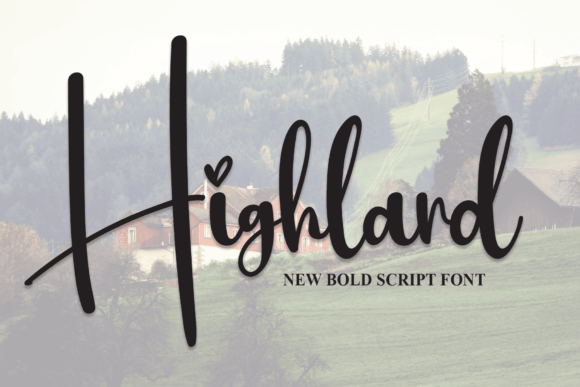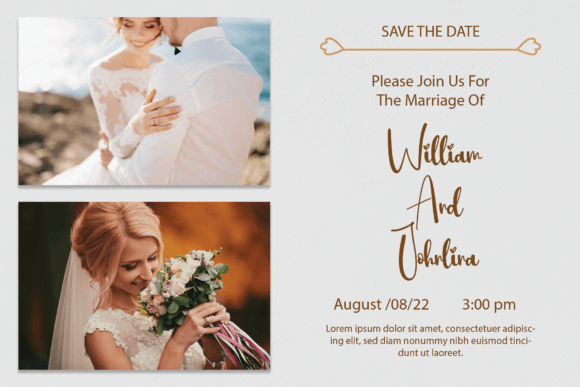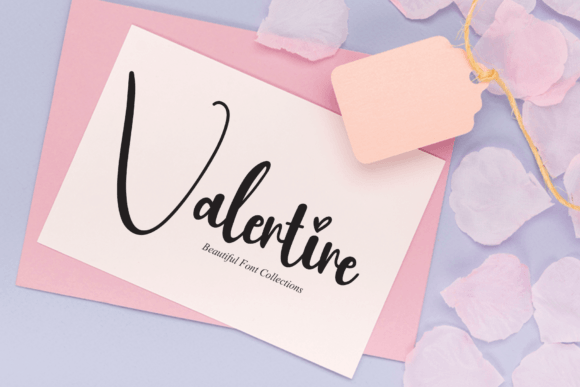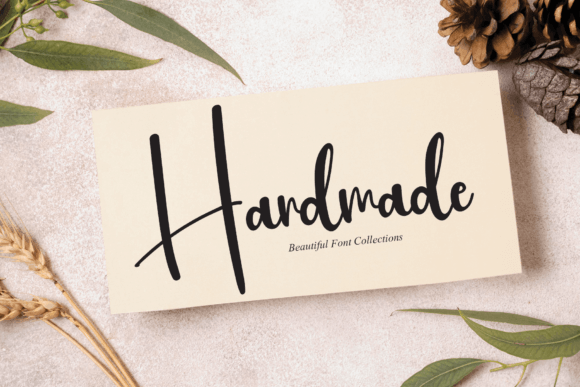
About Highland Font
Highland is a simple yet uniquely crafted handwritten font designed to impart an extraordinary feel to your designs. Its simplicity adds an understated elegance, making it a versatile choice for a wide range of applications. Whether you’re working on wall displays, wedding invitations, social media posts, logos, advertisements, product packaging, product designs, labels, photography, watermarks, invitations, stationery, and more, Highland is tailor-made to elevate and make your designs outstanding.
The hallmark of Highland lies in its straightforward and clean design, allowing it to seamlessly integrate into various design contexts while maintaining a sense of individuality. Envision incorporating Highland into your wall displays, where its simplicity enhances visual appeal without overshadowing the overall design.
For wedding invitations and social media posts, Highland brings a touch of sophistication while retaining a friendly and approachable demeanor. Its handwritten aesthetic adds a personal and authentic feel, making your content stand out with a touch of human connection.
In branding, logos, and product packaging, Highland becomes a versatile tool, offering a balance between simplicity and distinction. Its adaptability ensures that your brand identity remains cohesive across different touchpoints, from labels to advertisements.
Whether applied to photography, watermarks, or stationery, Highland provides a clean and extraordinary touch that complements various visual elements. Its simplicity becomes a strength, allowing your designs to shine without unnecessary complexity.
In conclusion, Highland is more than just a font; it’s a design asset crafted to enhance your creations with an extraordinary feel. Elevate your designs across diverse applications, and let Highland be the key to making your projects outstanding and memorable.